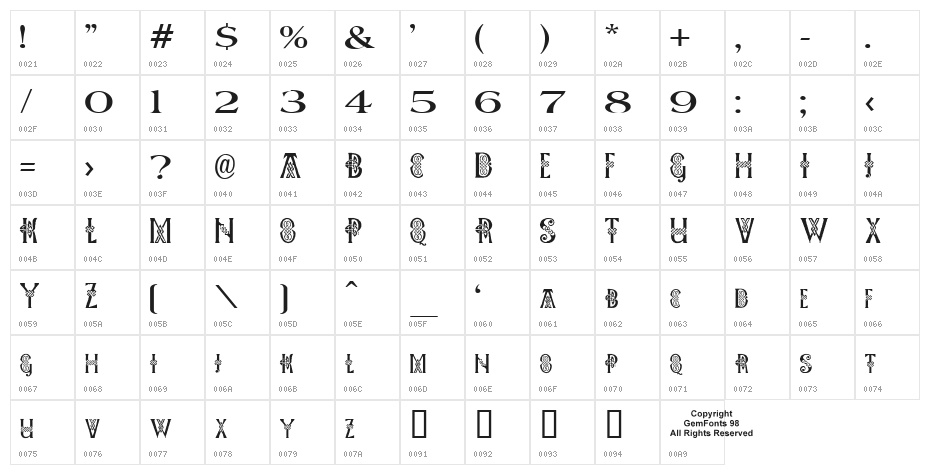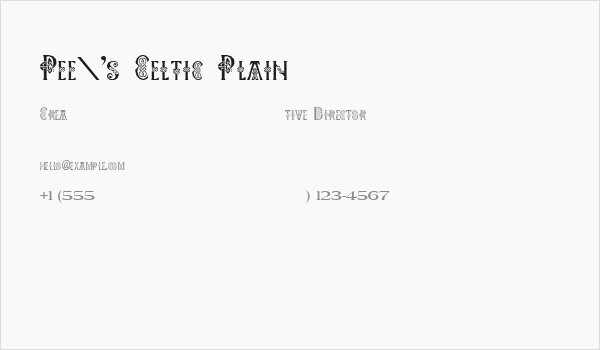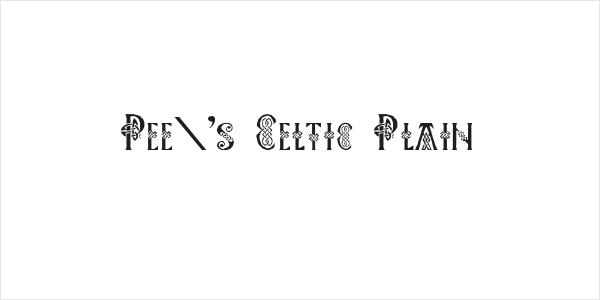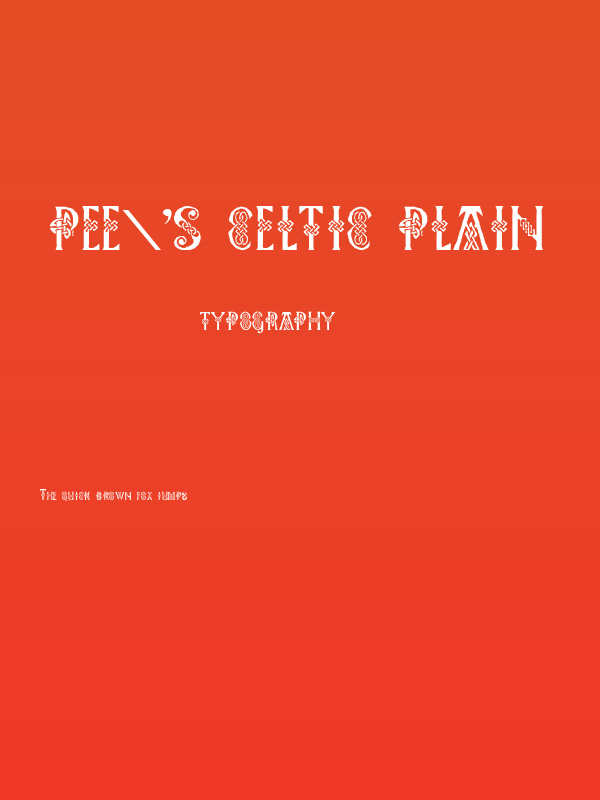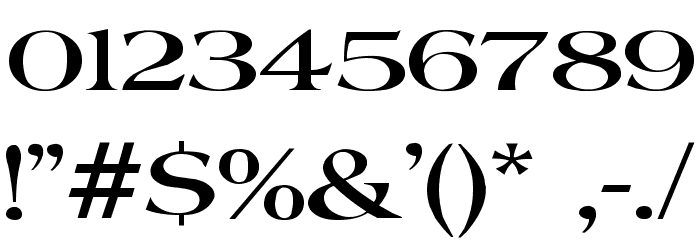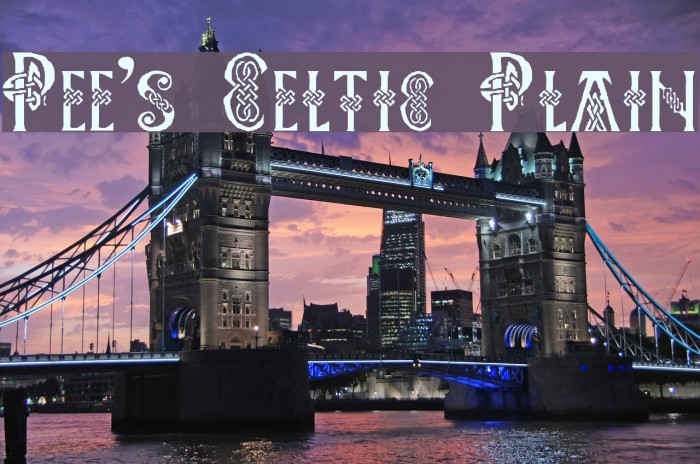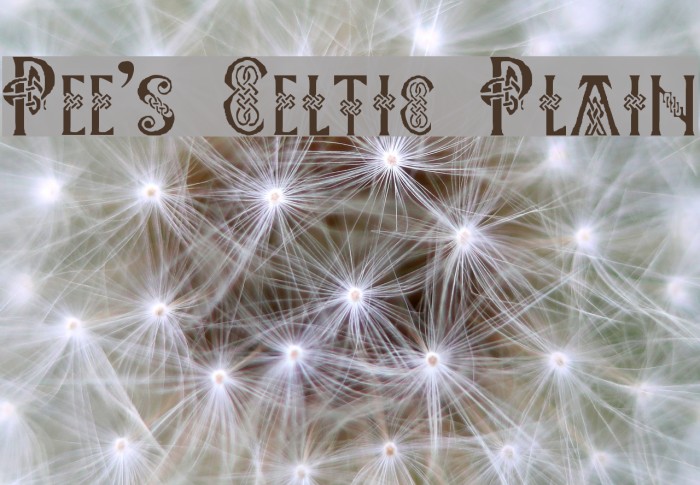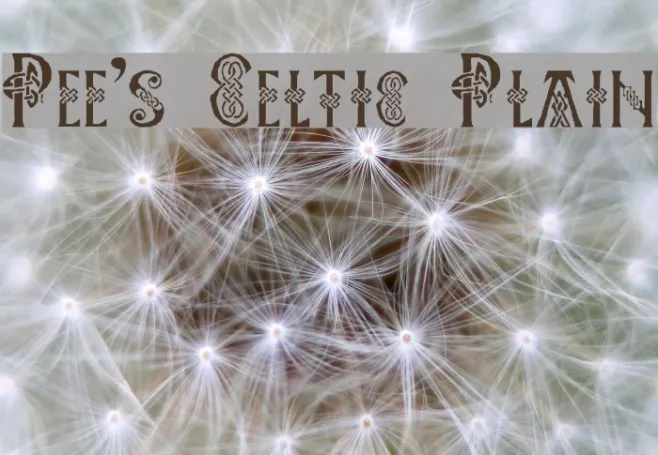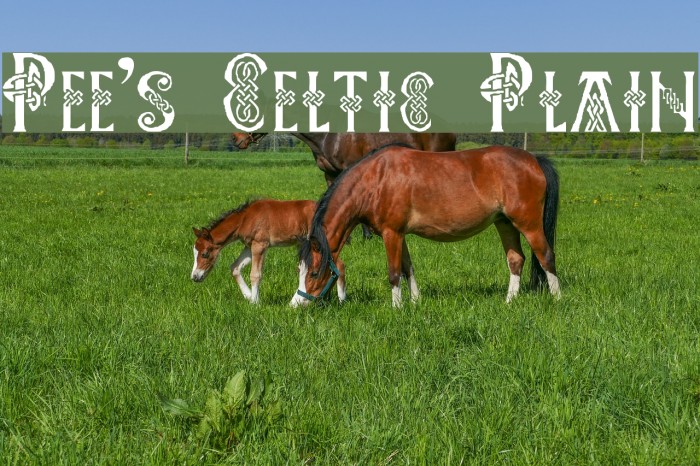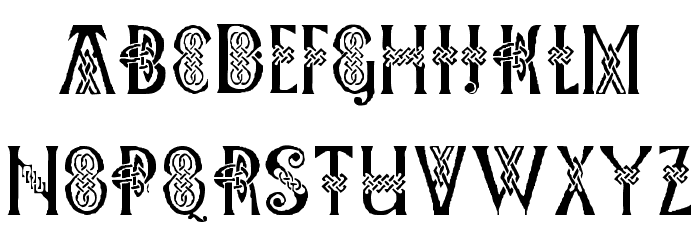
Pee's Celtic Plain Font
Pee's Celtic Plain Description
This font features an intricate design with a strong Celtic influence, characterized by interwoven patterns and bold, decorative elements. The uppercase letters are particularly ornate, with each character incorporating knot-like designs that evoke traditional Celtic art. The lowercase letters maintain a simpler style but still reflect the overall theme. The numerals are bold and slightly condensed, complementing the decorative nature of the alphabet. Special characters are also designed with similar embellishments, ensuring a cohesive look throughout. This font is ideal for projects that require a touch of historical or cultural flair, making it perfect for themed events, branding, or artistic endeavors.
| Use Case | Headlines, Logos, Artistic projects |
| Proposed Projects | Ideal for themed events, branding, artistic projects, and any design requiring a historical or cultural touch. |